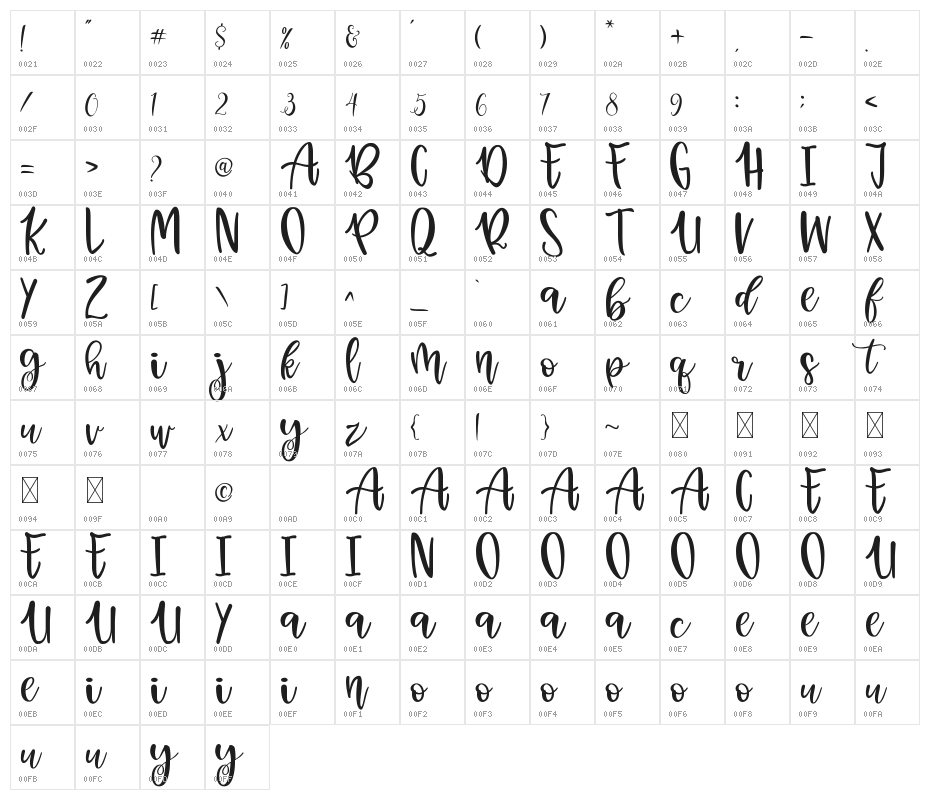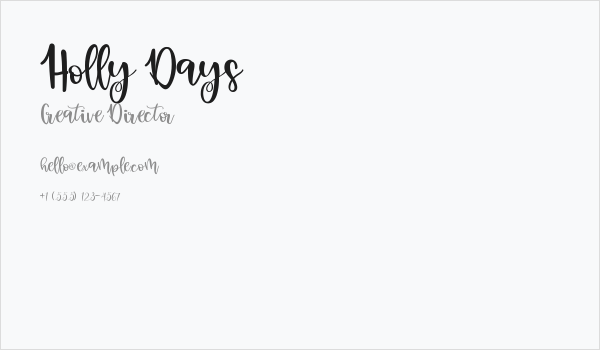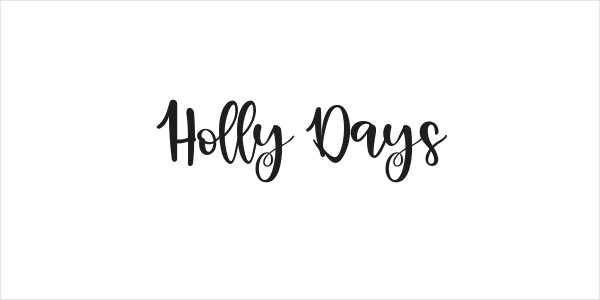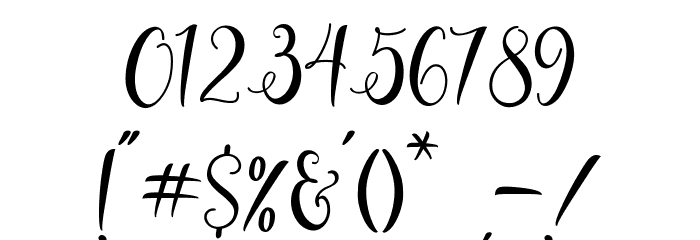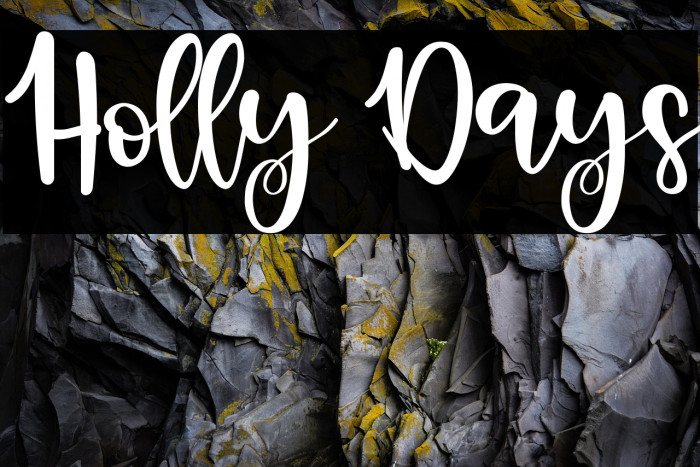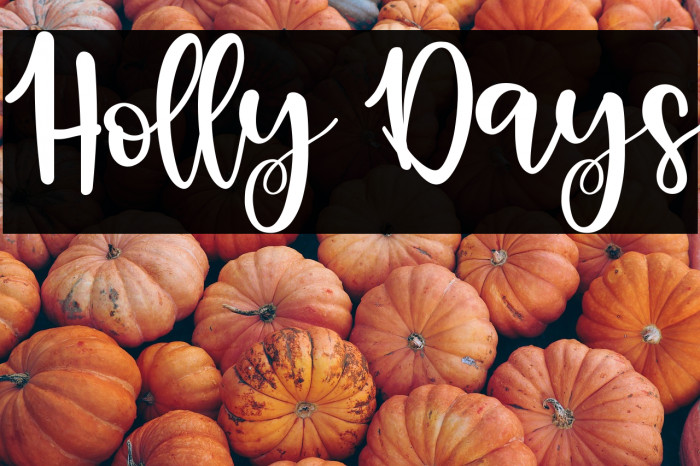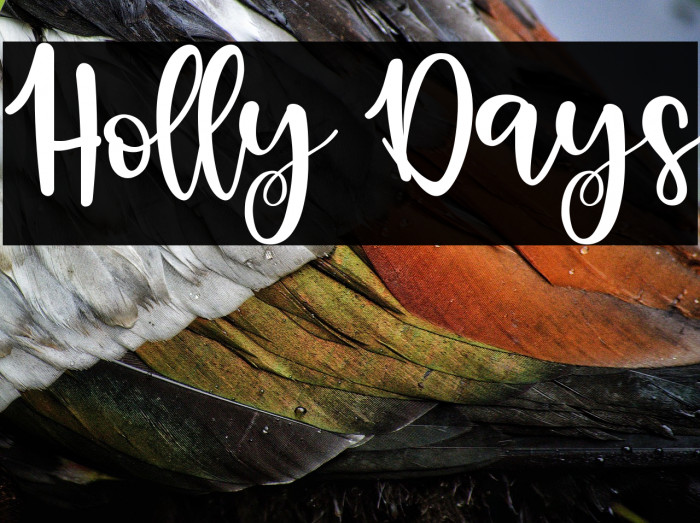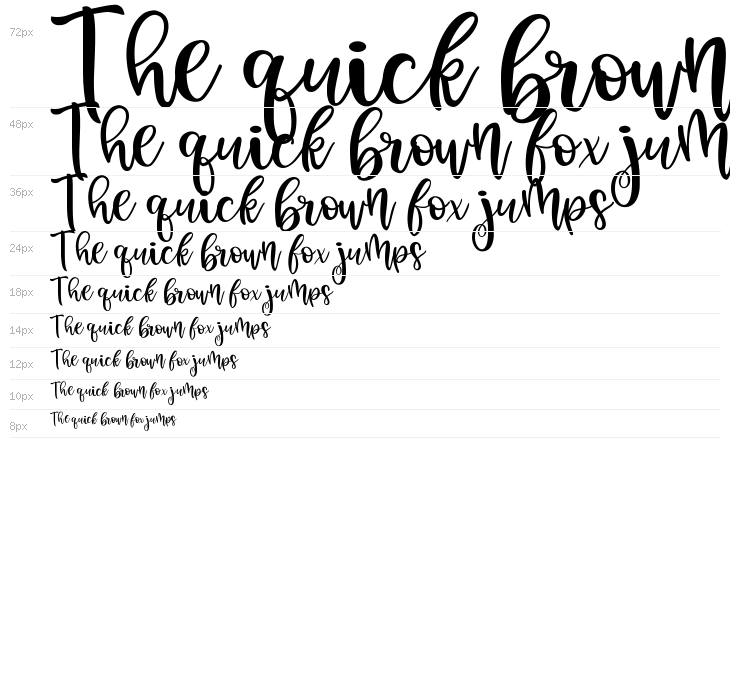
Holly Days Font
Holly Days Description
This font exudes a playful and whimsical charm, characterized by its flowing, cursive script style. The letters are crafted with a smooth, continuous stroke that gives a sense of fluidity and elegance. The uppercase letters are bold and slightly exaggerated, adding a touch of drama, while the lowercase letters maintain a consistent flow with occasional loops and swirls. The numerals are designed to match the playful nature of the alphabet, with a slight tilt and rounded edges. Special characters are creatively integrated, maintaining the overall aesthetic. This font is perfect for projects that require a personal, handwritten touch, such as invitations, greeting cards, or branding materials.
| Proposed Projects | Ideal for invitations, greeting cards, branding, and decorative projects. |